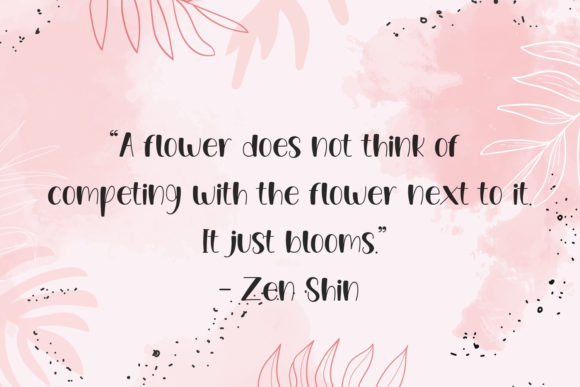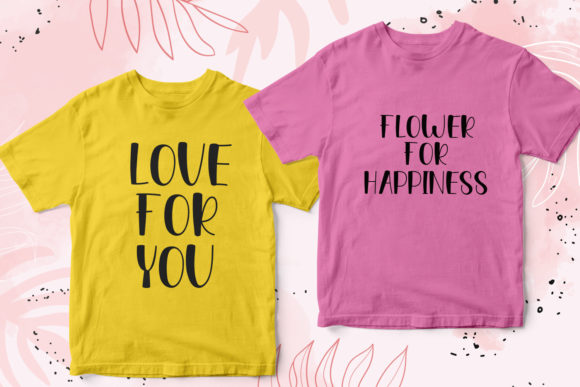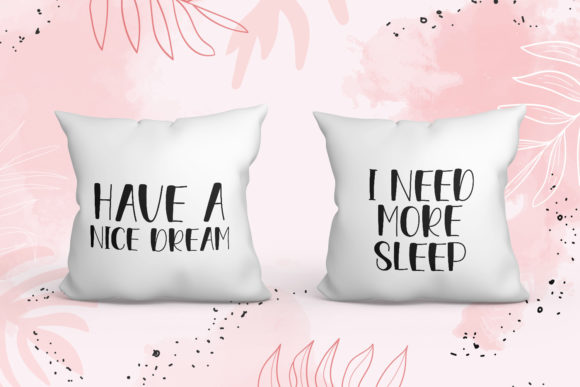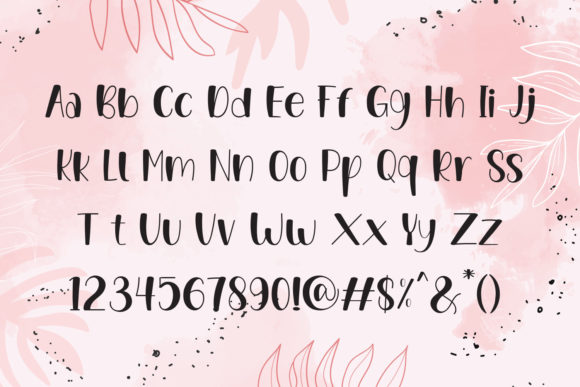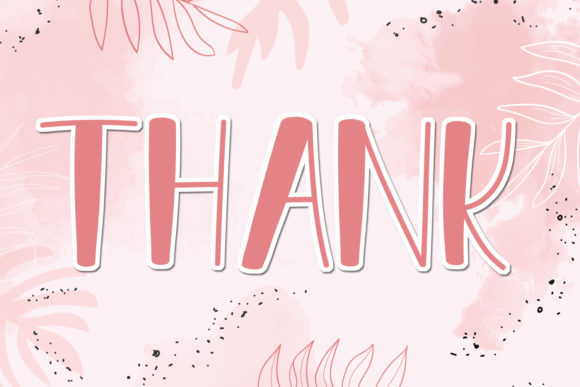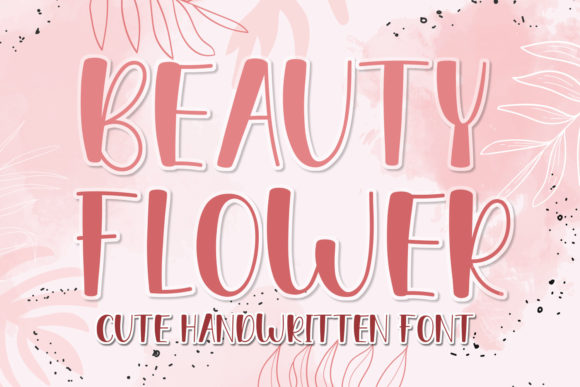
Introducing Beauty Flower Font: The Perfect Addition to Your Fashion Branding and Editorial Designs
In the world of typography, fonts play a crucial role in conveying the tone and personality of a brand or design. When it comes to creating visually stunning and engaging content, the right font can make all the difference. If you’re a designer or crafty enthusiast looking for a font that exudes elegance, playfulness, and sophistication, look no further than the Beauty Flower Font.
What is Beauty Flower Font?
Beauty Flower Font is a cute and playful display font that is sure to capture the hearts of designers and crafters alike. Characterized by smooth curves and a whimsical feel, this font is perfect for fashion branding, editorial designs, and any project that requires a touch of elegance and sophistication.
Key Features of Beauty Flower Font
- Smooth Curves: The Beauty Flower Font boasts smooth, flowing curves that give it a soft and feminine touch, making it perfect for designs that require a delicate and elegant feel.
- Playful and Cute: Despite its elegance, the Beauty Flower Font has a playful and cute side that makes it suitable for designs that require a touch of whimsy and fun.
- High Versatility: This font is highly versatile and can be used in a variety of design projects, from fashion branding and editorial designs to packaging and advertising.
Why Choose Beauty Flower Font?
So, why should you choose the Beauty Flower Font for your next design project? Here are just a few compelling reasons:
- Unique and Eye-Catching: The Beauty Flower Font is a unique and eye-catching font that will set your designs apart from the rest.
- Perfect for Fashion Branding: If you’re working on a fashion branding project, the Beauty Flower Font is an excellent choice, as it exudes elegance, sophistication, and style.
- Editorial Designs: For editorial designs, such as magazine covers, articles, and blog posts, the Beauty Flower Font is an excellent choice, as it adds a touch of whimsy and playfulness.
- Crafting and DIY Projects: If you’re a crafter or DIY enthusiast, the Beauty Flower Font is perfect for adding a personal touch to your projects, such as handmade cards, gift tags, and scrapbooking.